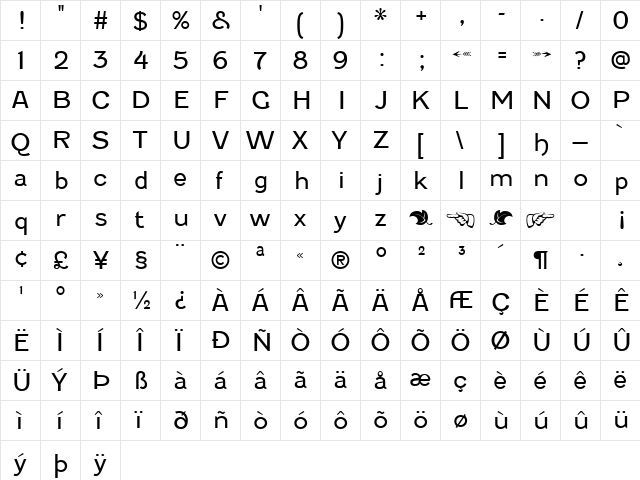
Fenwick Light Regular
| Foundry | Typodermic |
Design Context for Fenwick Light Typeface
Fenwick Light is a composed and adaptable typeface that performs quietly and consistently across a wide range of design contexts. Its slender proportions lend an understated elegance to any composition.